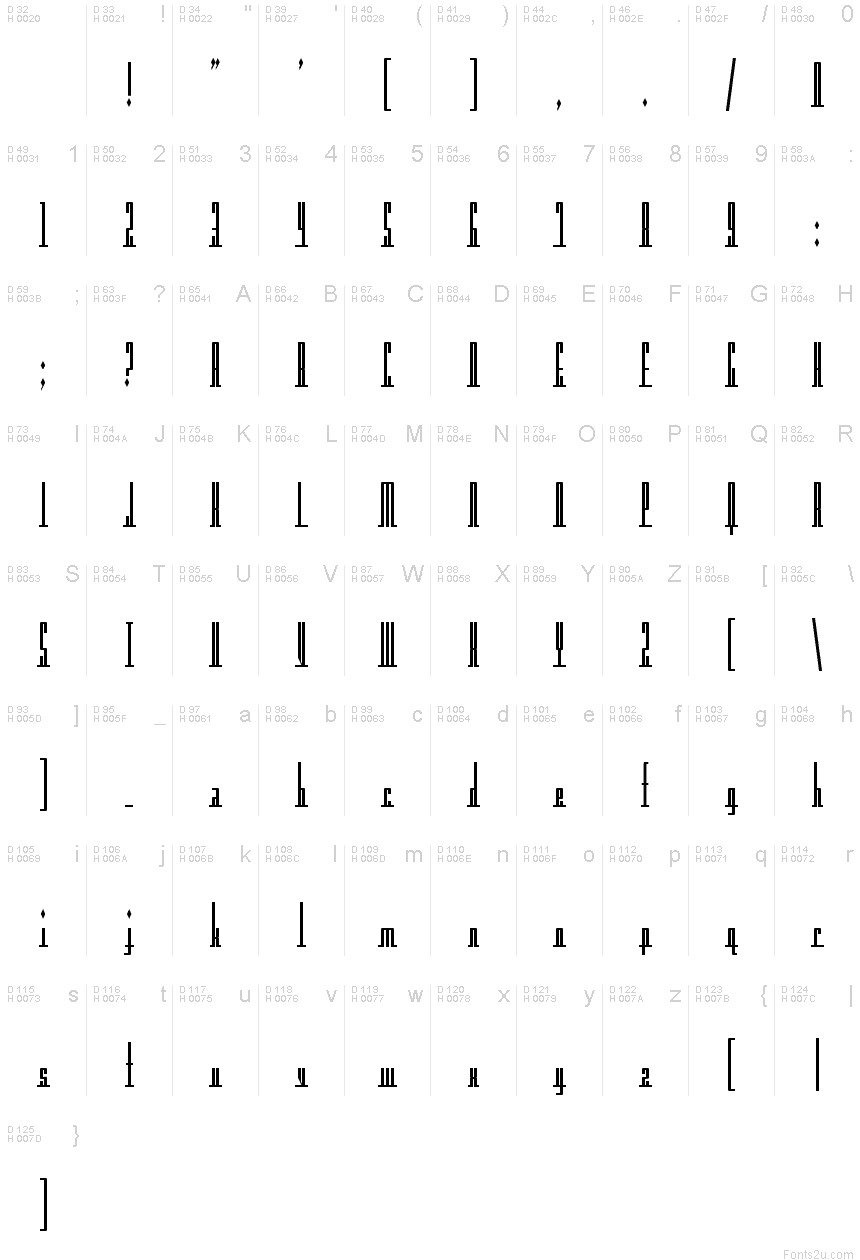
Americana Dreams CondUpright
Americana Dreams Cond Upright font by ShyWedge is a free retro display typeface that turns every word into a neon sign. Its ultra-tall, tightly condensed letterforms feel like they were pulled from a flickering arcade marquee or a late-night diner window, with squared curves and rigid vertical strokes that stack beautifully in narrow spaces. The Americana Dreams family flavor is clear in the way each character clicks together like a strand of electric lettering, sharp yet surprisingly readable at larger sizes.
Using Americana Dreams Cond Upright, headlines take on a glossy, futuristic-vintage attitude that works beautifully for posters, synthwave album covers, club flyers, indie game titles, editorial mastheads, and bold branding for nightlife or events. This free font really shines when you give it room to breathe in the vertical direction, then pair it with a simple geometric sans at smaller sizes for body text. Set it large, track it slightly loose, and let those slender columns of type do the talking.